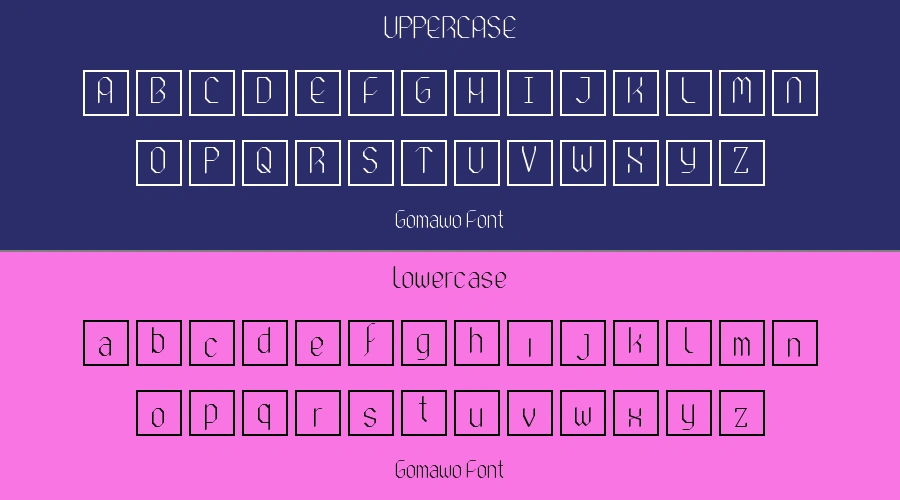
About Gomawo Font
Gomawo Font stands out for its distinctive combination of organic curves and production readiness. Ideal for brand identities, it provides the consistency and cultural relevance that professional projects demand. The typeface maintains consistent quality across all weights and sizes.
Key features include refined angled joins and practical beginning forms, enhancing typographic expression. In product names applications, Gomawo Font demonstrates exceptional reproduction fidelity. The tail length and creative expression contribute to its distinctive character and professional appeal.